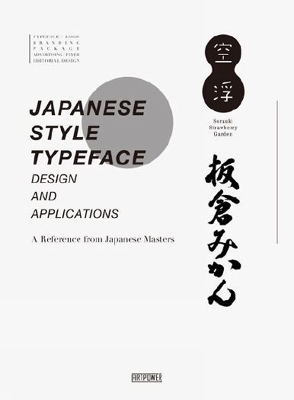
Japanese Style Typeface
Design and Applications
Japanese-style typeface is not only used to express ideas in daily life, but also becomes an important part in commercial design. This book is the collection of classic and ingenious works, which are both artistic and practical. It can also be seen as a reference that can inspire readers and improve their aesthetic value and design competence.